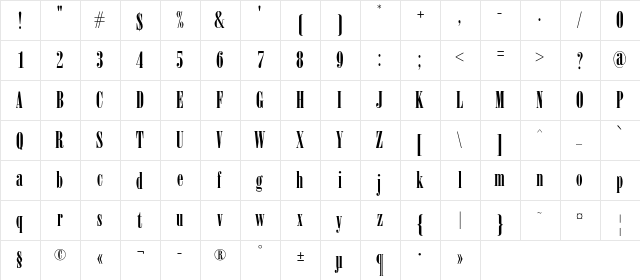
Arsis Regular
Design Context for Arsis Typeface
Arsis offers clean, dependable letterforms without strong stylistic allegiance, making it a practical choice for designers who need flexibility.
Pro Tip: Use Arsis in both headline and body roles to test its range before committing to a single application.